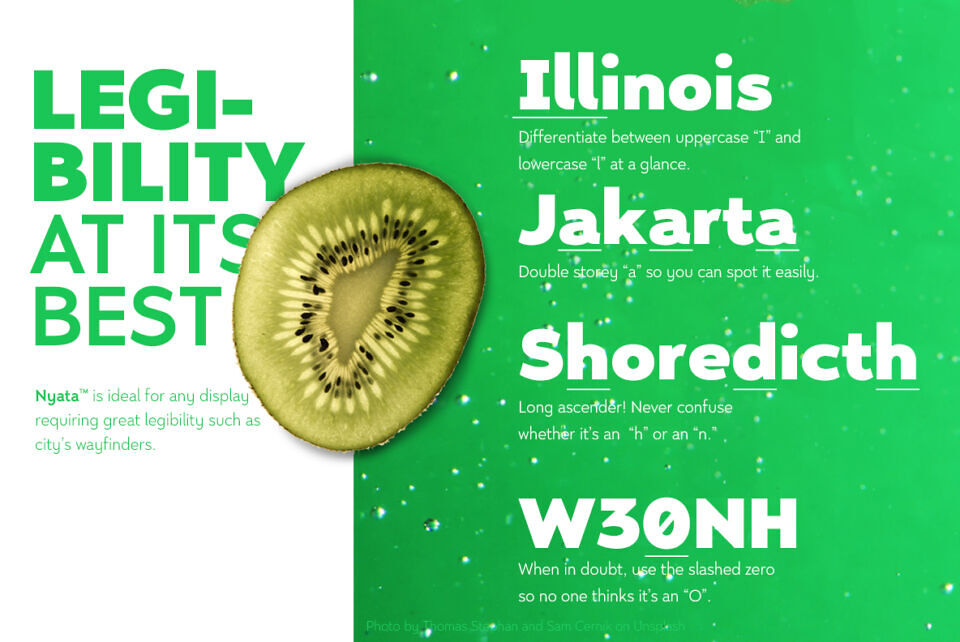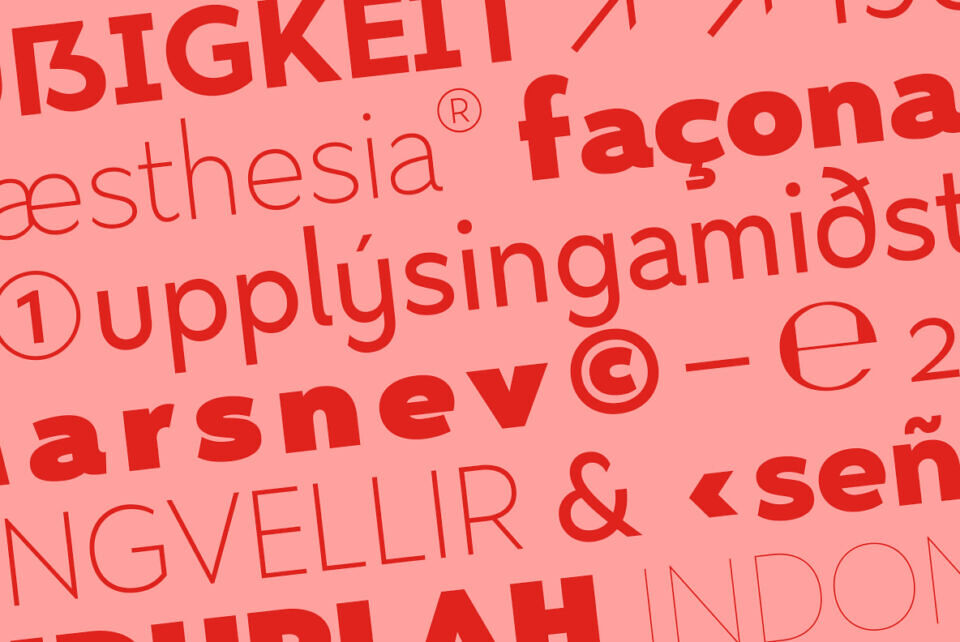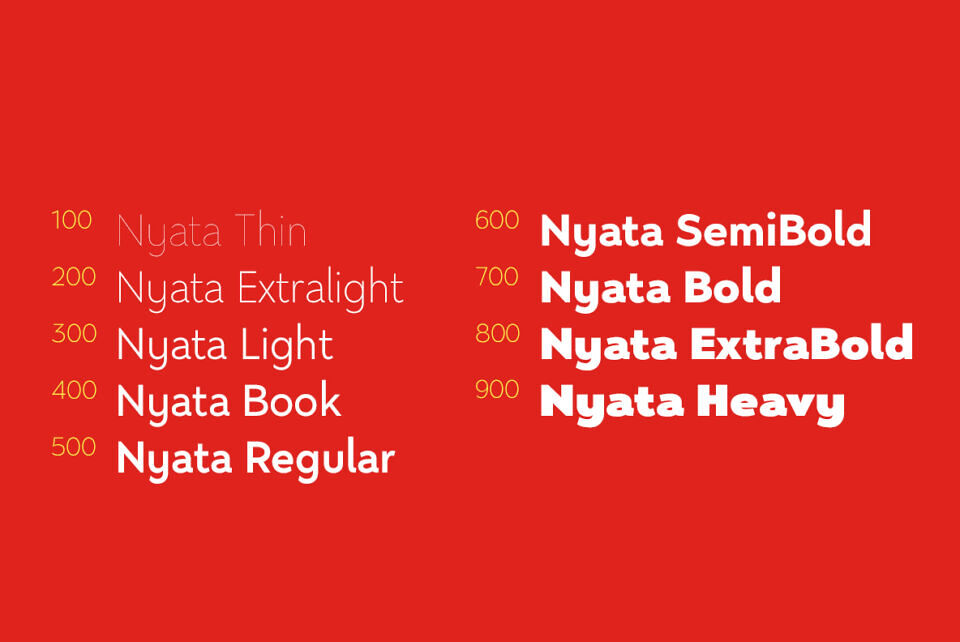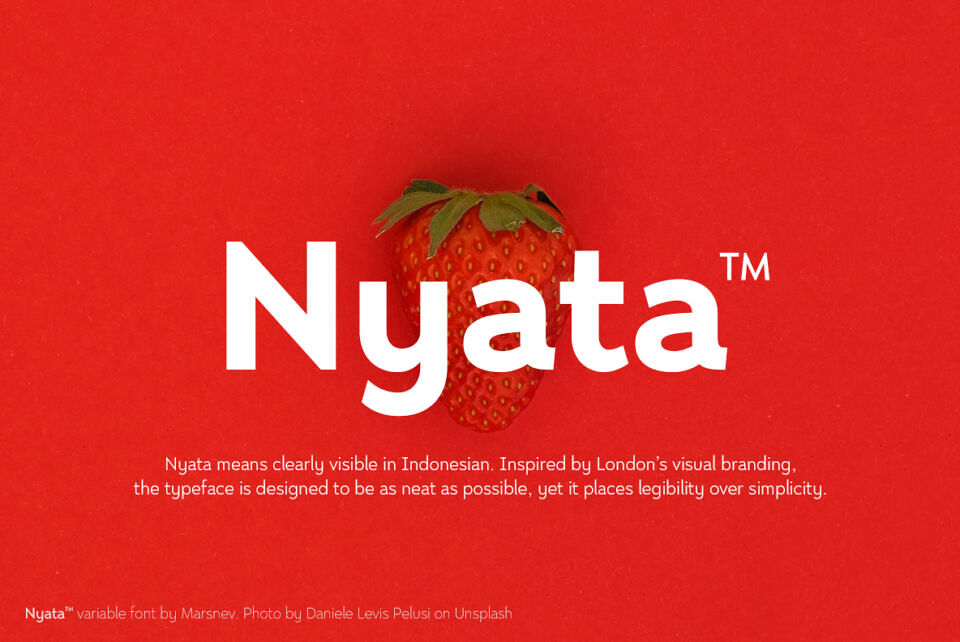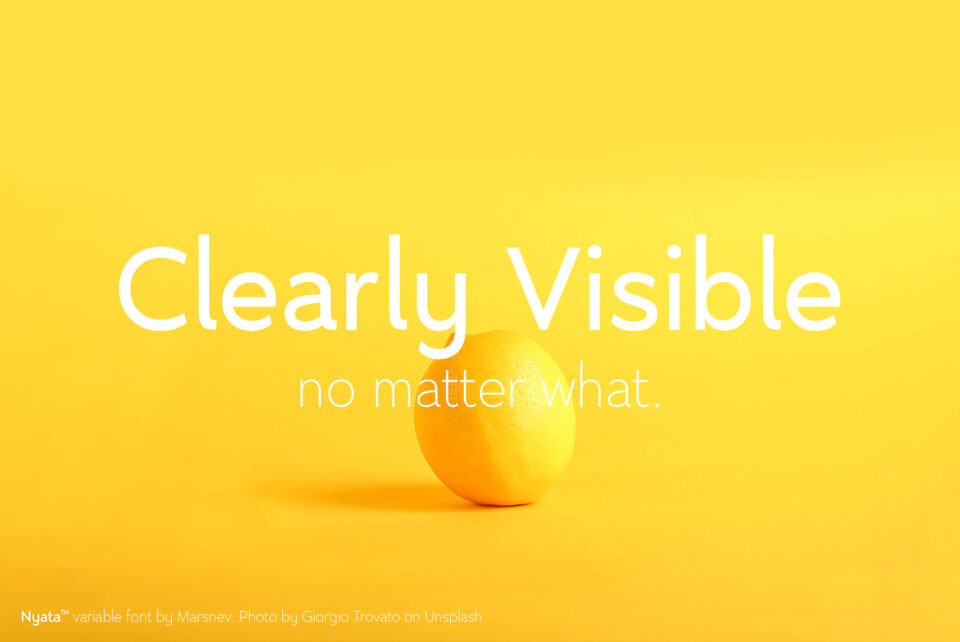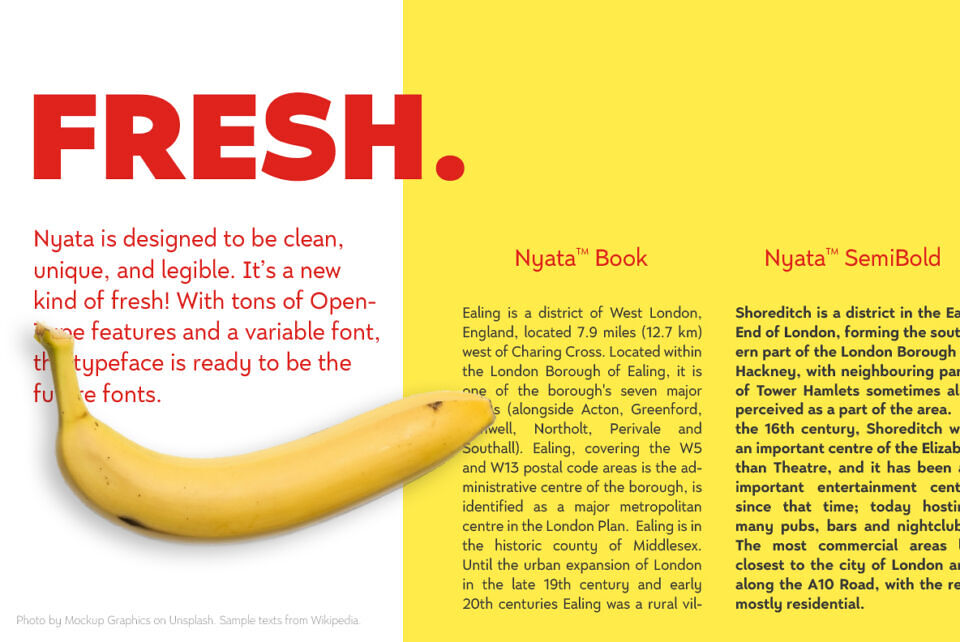
Nyata, inspired by London’s iconic Johnston typeface, is a clean, unique, and highly legible font family, meaning “clearly visible” in Indonesian. Designed for city wayfinders and displays, it features medium-weight regular (500) for optimal clarity, long ascenders to distinguish characters like “h” and “n,” and careful design to avoid confusion between “I” and “l.”
Equipped with OpenType features like slashed zeros and stylistic sets, including a serifed uppercase “I,” Nyata ensures unmistakable readability for branding and navigation.